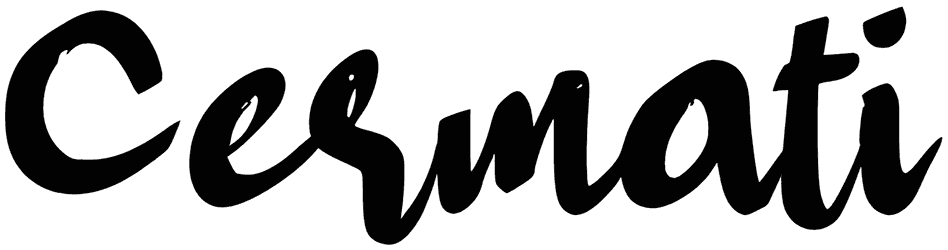
c Cermati Font
Supporting texts, tag lines, brand descriptions, or logos would be the most dominant realm of using a lovely script font, the same as c Cermati. This brush font has the true potential of bringing a sense of freshness, comfort, professionalism, or momentum to any kind of editorial project. Just in case you want another font in the same category, visit the RB archive.